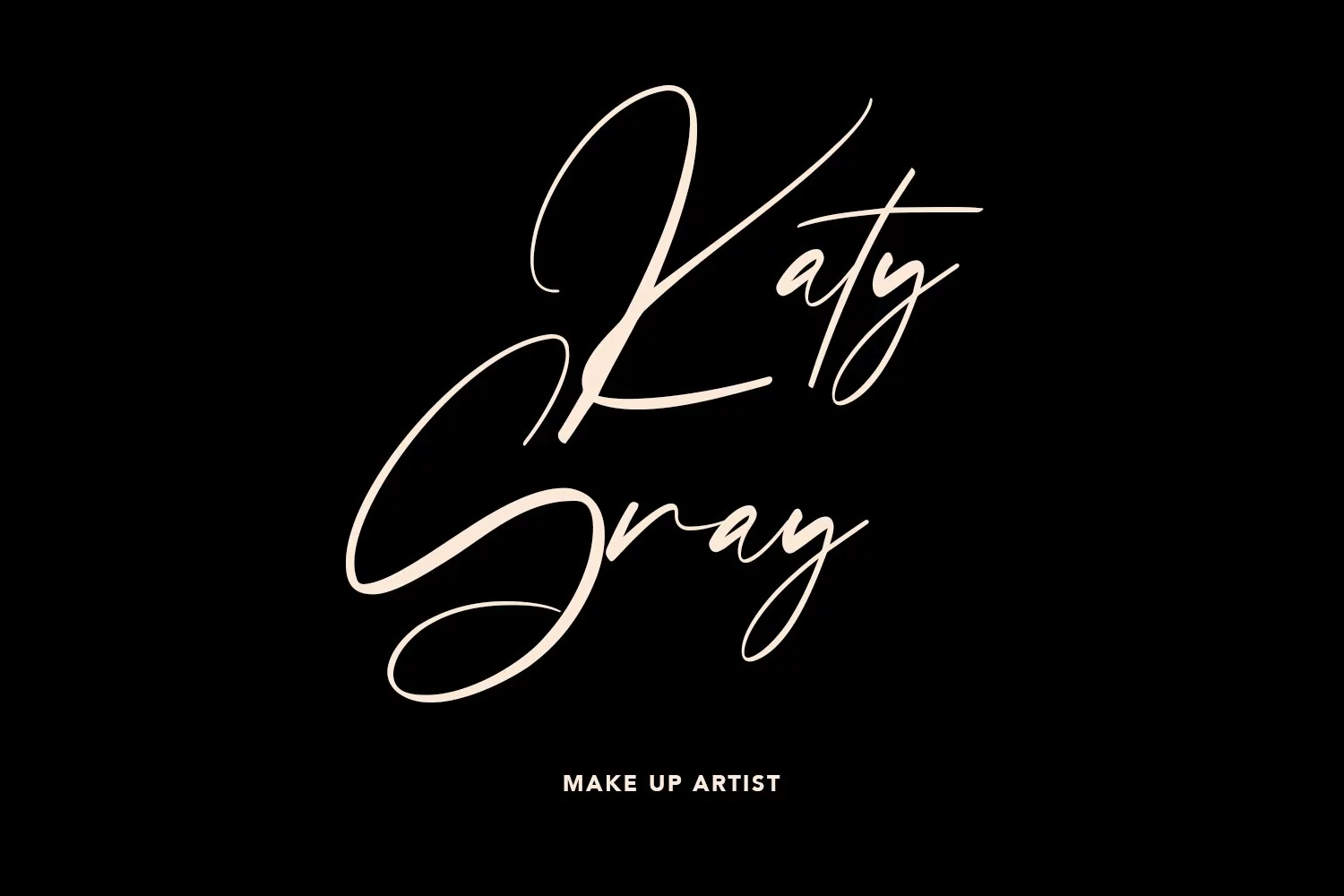
Steffyray is a fancy Signature font, has slanted and fun characters. It has Opentype features of ligatures, makes it a perfect choice for branding and digital designs. Use this font for logos, social media, websites, blogs, instagram, social media, business cards, branding, and more! Steffyray font support multilingual more than 100+ language. and good pair for your secondary text font with sans or serif. Make a stunning work with Steffyray signature font.
Steffyray